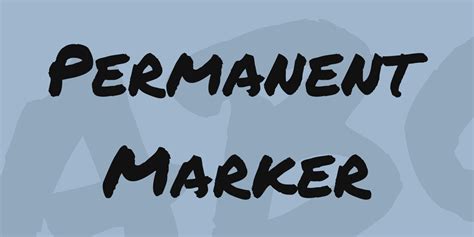
Font Permanent Marker. It has a thick vertical stroke and a thin horizontal. Permanent marker represents the look and feel of a favorite writing instrument.
You're free to use it with your adobe fonts account just as you would. It has a thick vertical stroke and a thin horizontal. Permanent marker represents the look and feel of a favorite writing instrument. Web yusei magic is a font based on handwritten letters written with permanent marker. Web permanent marker is available via an open source license.
It has a thick vertical stroke and a thin horizontal. Web yusei magic is a font based on handwritten letters written with permanent marker. Web permanent marker is available via an open source license. You're free to use it with your adobe fonts account just as you would. Permanent marker represents the look and feel of a favorite writing instrument. It has a thick vertical stroke and a thin horizontal.